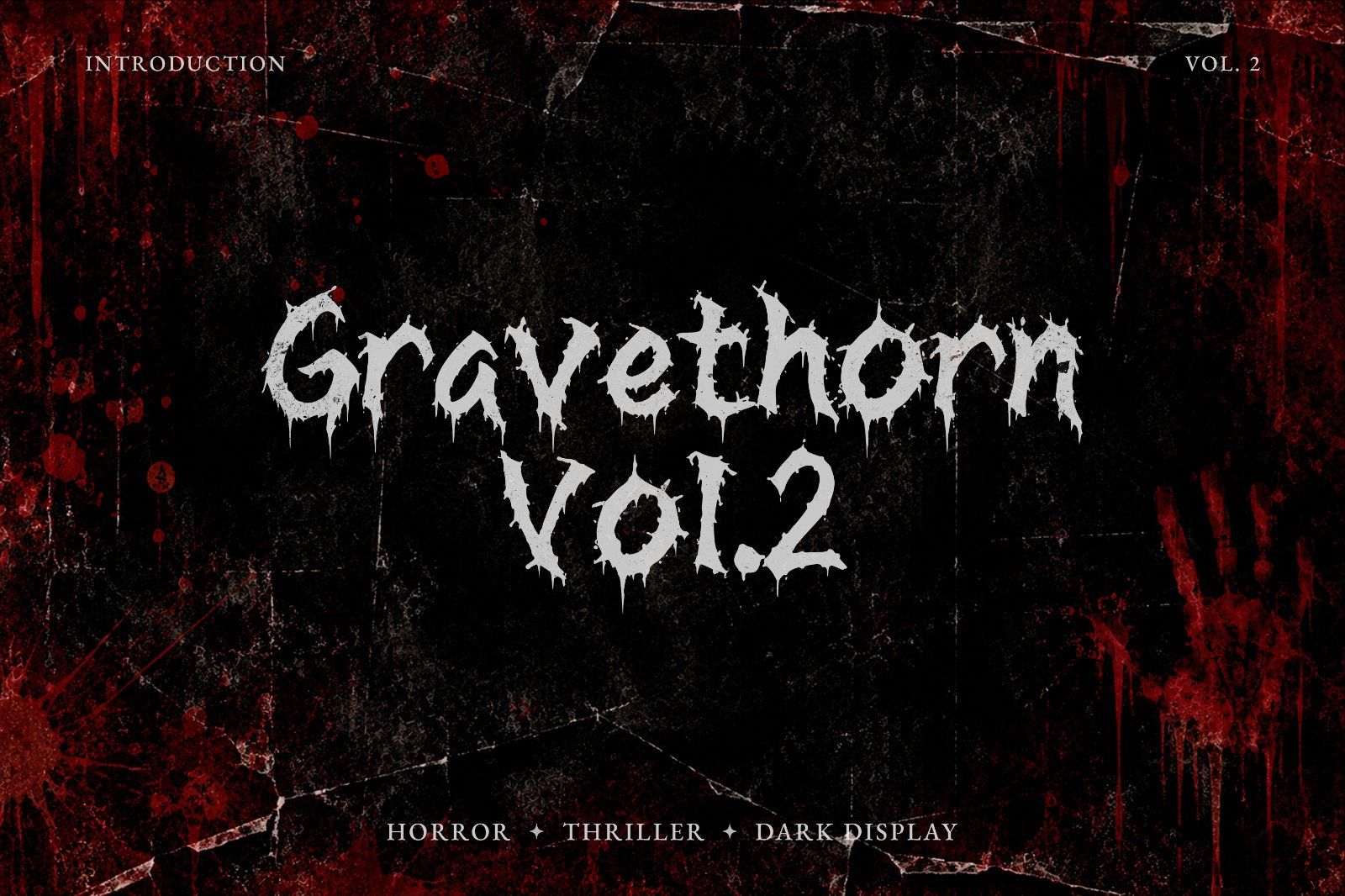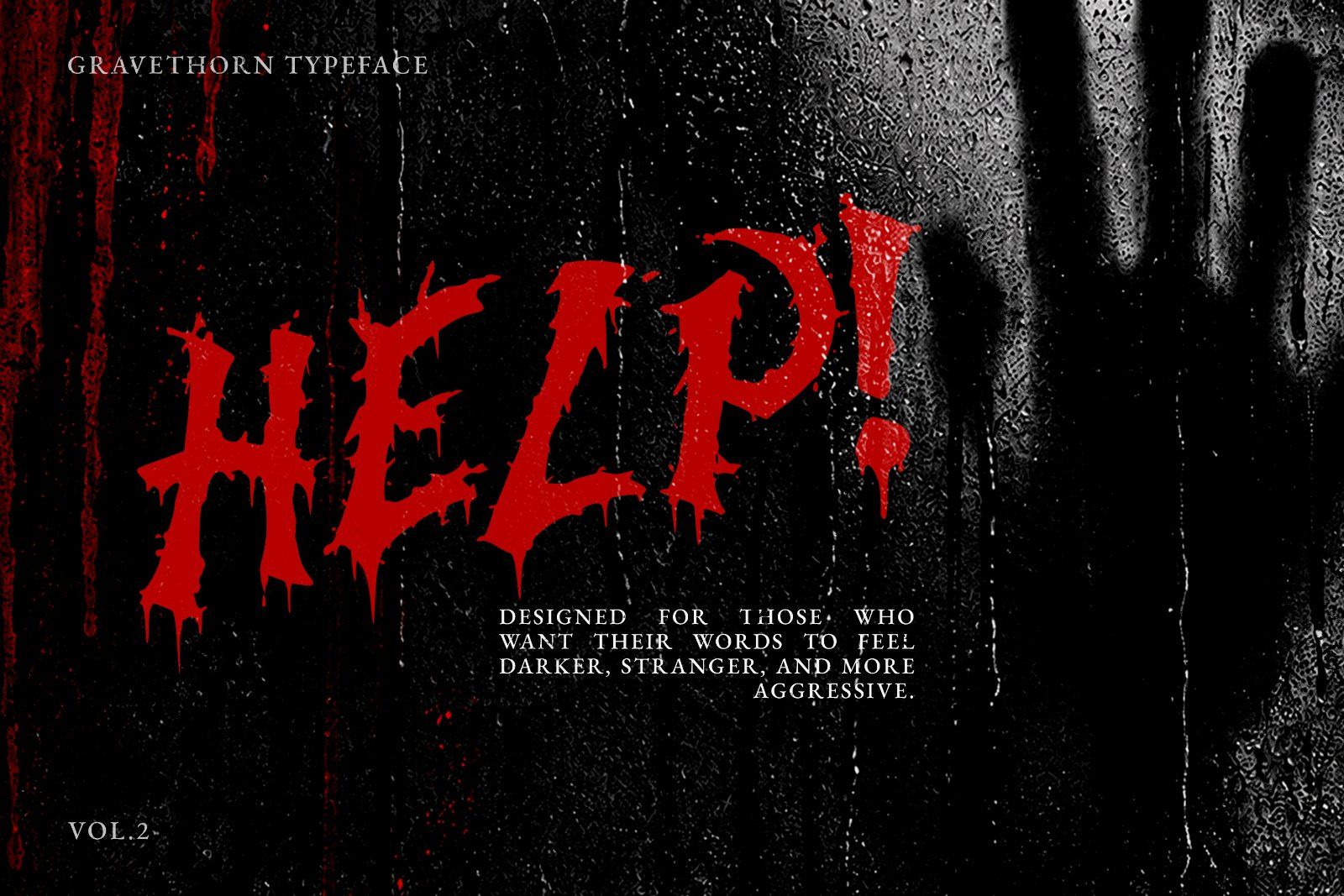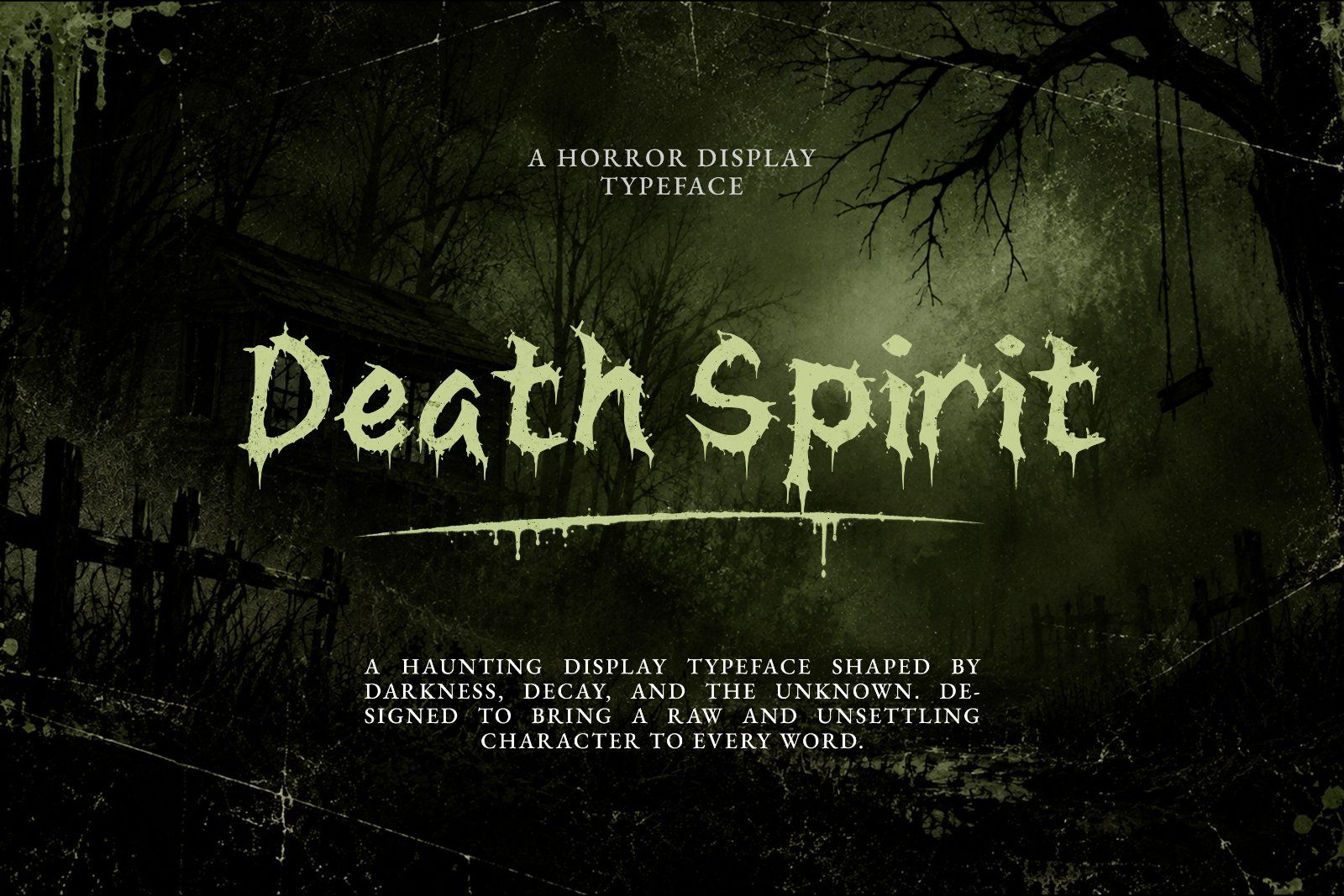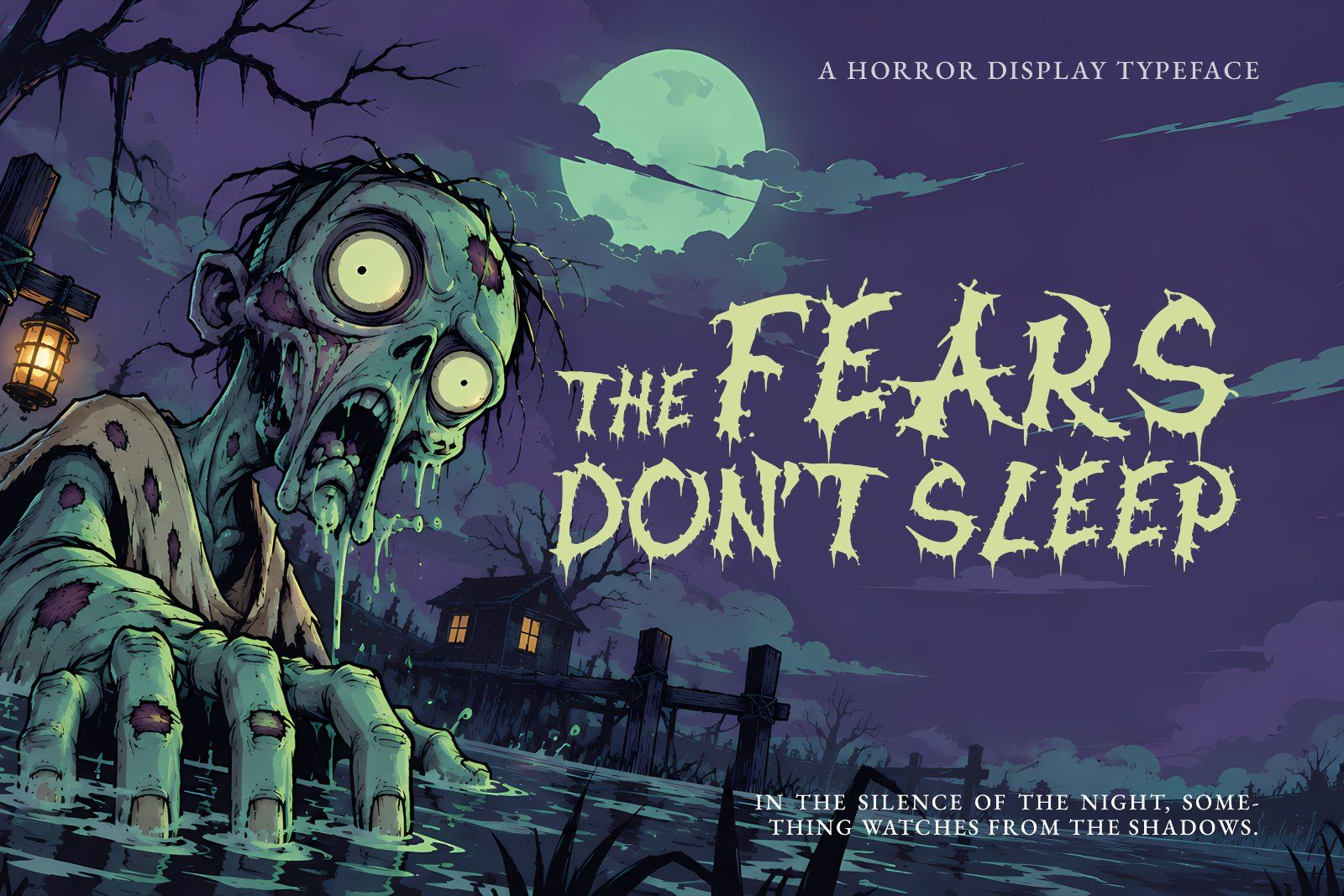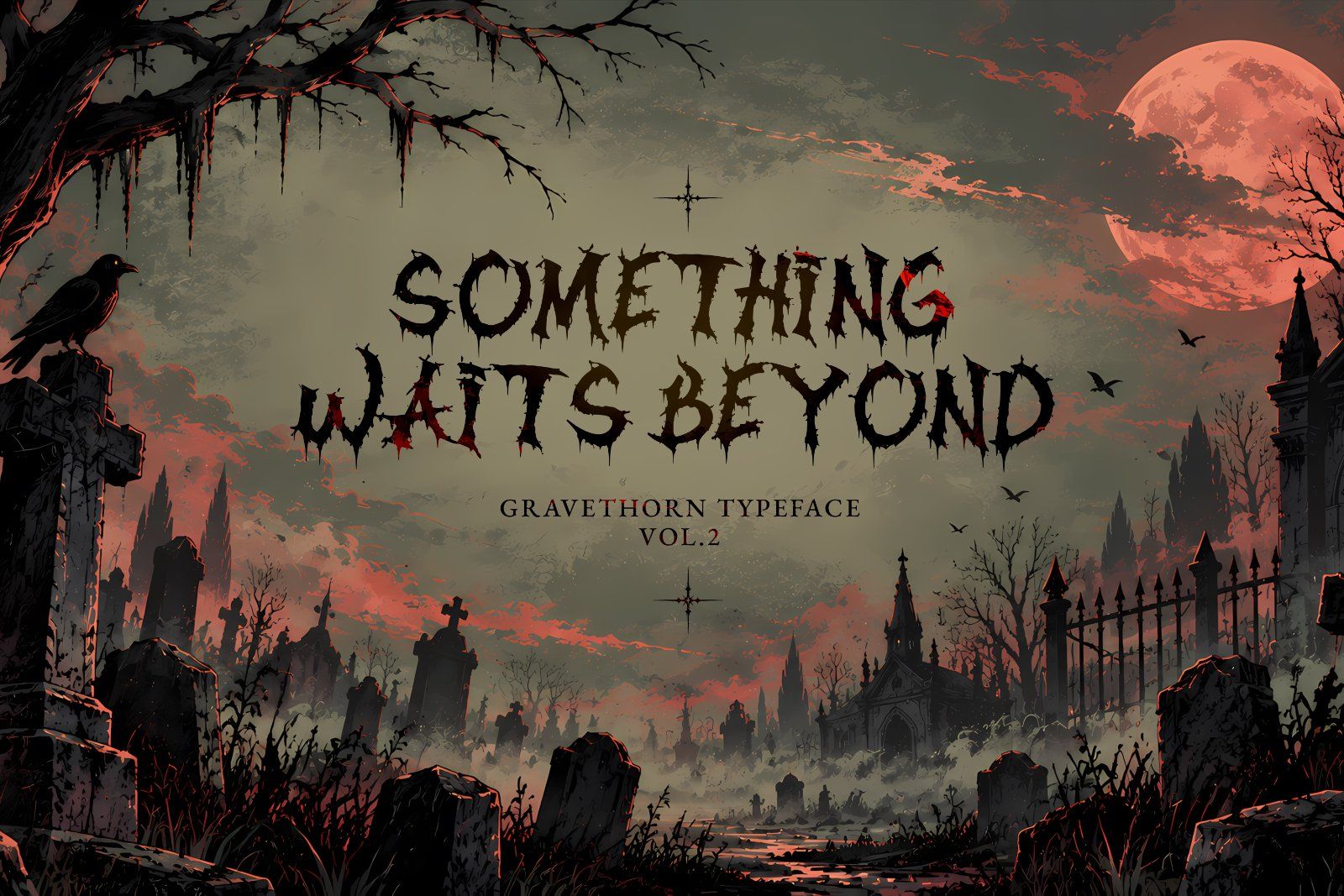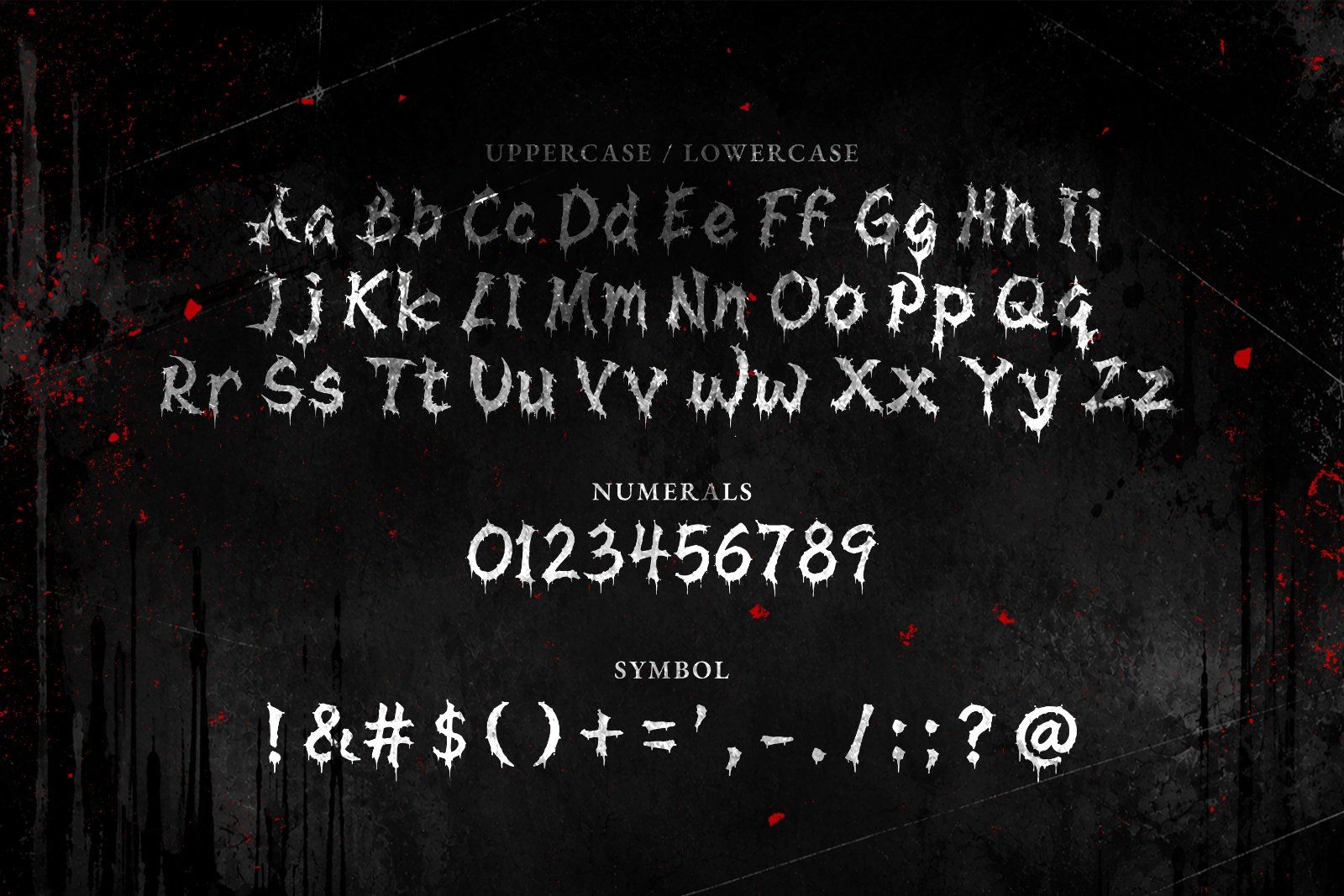
Gravethorn Vol. 2 is a raw and distressed horror display typeface featuring jagged letterforms, dripping details, and an aggressive dark aesthetic. Perfect for horror posters, metal artwork, album covers, movie titles, and extreme dark-themed designs.
• Full set of uppercase and lowercase letters
• Numbers, punctuation, and symbols
• Handcrafted rough brush textures with natural imperfections
• Horror Movie Titles
• Thriller Posters
• Heavy Metal & Extreme Music
• Album Covers
• Band Logos
• Dark Gaming Graphics
Use it when your design needs typography that feels rough, dangerous, mysterious, and unapologetically dark.
Gravethorn Vol. 2 is built for dark visuals, extreme stories, and typography that leaves a mark.